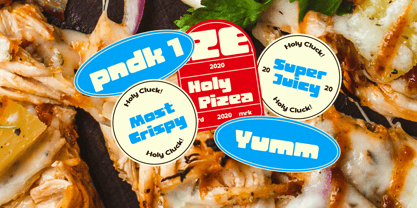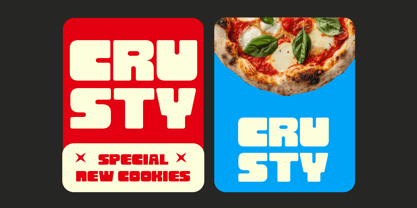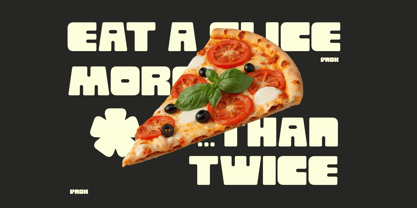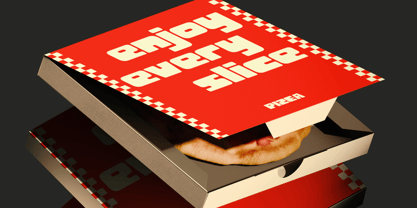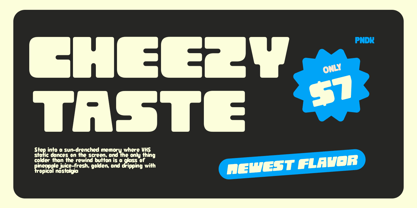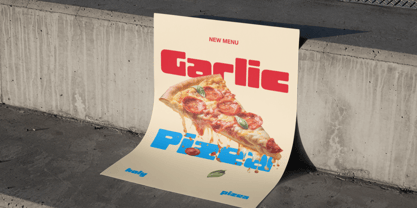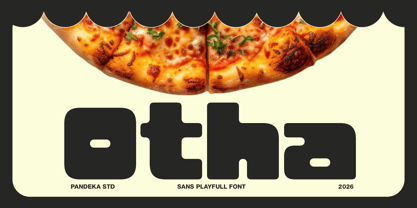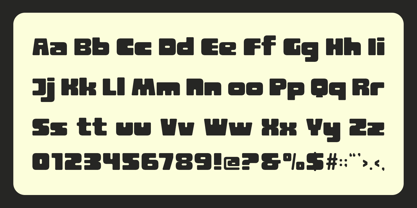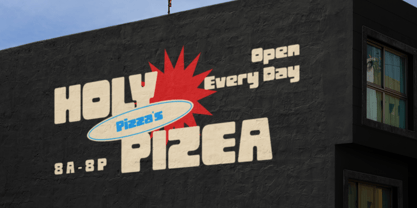
Otha
by Pandeka Studio
The Otha Font Family was designed by Sagara Nararya and published by Pandeka Studio. Otha contains 4 styles and family package options. More about this family
Otha is a bold playful sans font designed to bring energy, fun, and personality to every design. Featuring chunky geometric letterforms, rounded corners, and a cheerful modern style, it delivers excellent readability while creating eye-catching typography for both print and digital projects.
Available in 4 styles: Regular, Outline, Oblique, and Oblique Outline, Otha works seamlessly for food branding, snack packaging, pizza logos, restaurant identities, café menus, children's products, posters, social media graphics, product packaging, website headers, merchandise, event promotions, editorial layouts, and playful branding. It also includes multilingual support, making it suitable for creative projects worldwide.